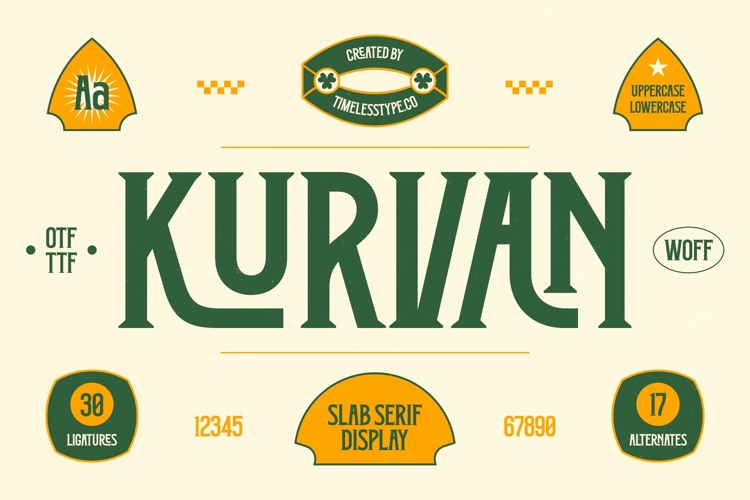
Kurvan - Slab Serif Display
Elevate your visual identity with a typeface that commands immediate attention and respect. Kurvan - Slab Serif Display represents the pinnacle of bold typography, merging vintage character with a modern aesthetic. Its high-contrast strokes and sturdy serifs offer a powerful visual rhythm that is both authoritative and inviting, making it an essential asset for any creative professional looking to make a statement.
Unmatched versatility is baked into every glyph of this comprehensive design toolkit. Featuring over 30 unique ligatures and 17 stylistic alternates, Kurvan - Slab Serif Display empowers designers to create custom logo design and distinctive headlines with ease. This level of detail ensures that every project maintains a bespoke feel, providing a premium design solution that stands out in a crowded digital or physical marketplace.